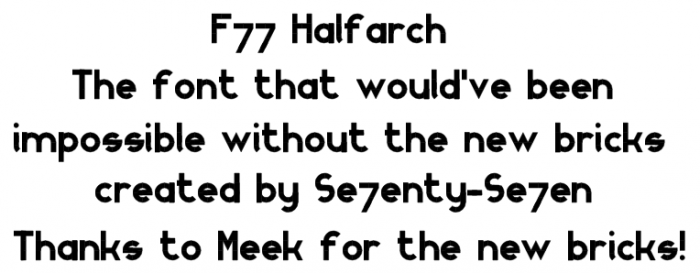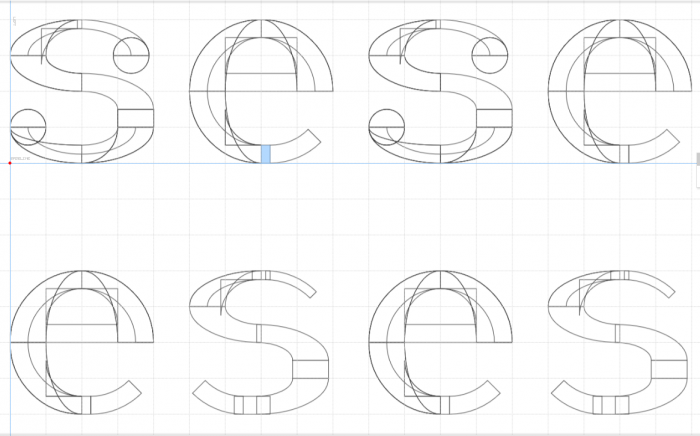
It's kinda perfect already like... kinda. I wouldn't say that's perfect but i like it
I am planning to do the accents, but I'm not sure if I can save them without the design breaking on me...
And I also raised the + and - by 1 grid square...
Just nudge a compressed brick in between the 2 arc bricks at the bottom of e and do the same at both top and bottom of sS, and its fixed! ;)
oh and filters for brick size needs to be set to 2x2
it will just as easily work on a more geometric circular glyph design like yours Se7en
A couple of more solutions on sS
In your last sample, I used the 2nd, but modified a bit so it was the same width as the old S, also added a tiny brick so it has a full curve there. The Old S is in a seperate font of old glyphs... Same with the $cause it uses the S too... I'll consider your 1st and 3rd in a font where lowercase is 5 tall and the uppercase is 7 tall, and your 4th in a thinner font, and your other solutions in a thick vertical font...
here some more groovy idea's